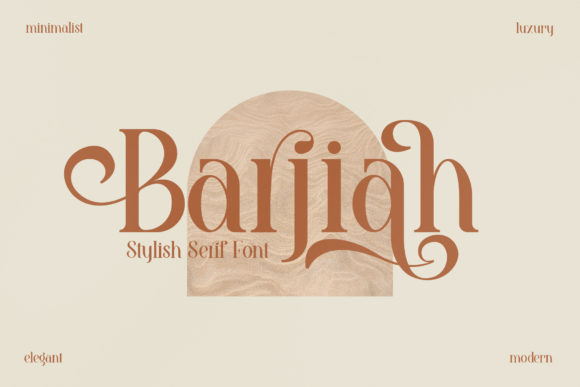
Dive into the realm of elegance and sophistication with Barjiah Font, a captivating serif creation by Storytype Studio. This font exudes an aura of luxury and modernity, making it the perfect choice for those seeking to elevate their designs.
Unleash your creativity and let Barjiah's unique elements take center stage. Craft luxurious logos that command attention, design book or movie titles that draw readers in, and create fashion brands that radiate elegance. Barjiah's versatility shines through in magazine covers, clothing designs, lettering, and quotes, adding a touch of refinement to every project.
With Barjiah, the possibilities are endless. Its PUA encoding ensures effortless access to an array of glyphs and swashes, empowering you to add intricate details and flourishes to your designs. Transform your words into works of art, leaving a lasting impression on your audience.
Barjiah is more than just a font; it's an invitation to embark on a journey of creativity and self-expression. Let its timeless beauty enhance your projects and captivate your audience.